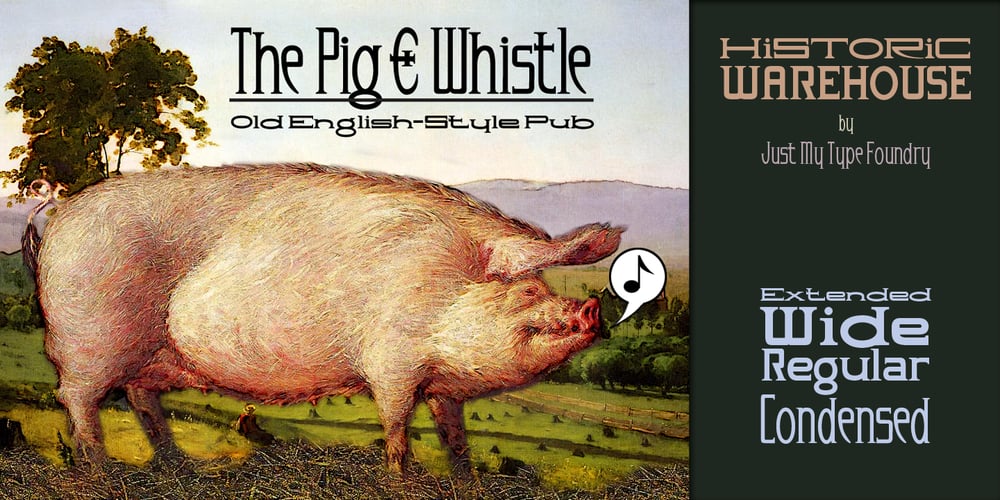
Historic Warehouse Font Family was designed by Randy Harris and published by Just My Type. Historic Warehouse contains 4 styles and family package options. Gotta tell ya: think out of the box and this font is addictingly fun to use! Introducing Historic Warehouse, a substantial, yet elegant family, invoking advertising fonts of the early 20th century. Why the name? When asked to design a banner for Tucson’s Historic Warehouse District, I couldn’t find the look I wanted from any known fonts. After drawing what I wanted in Illustrator, there were three (and in the process, four) fonts just waiting to be realized. Happy to oblige. Here’s Historic Warehouse Regular, setting the stage. It’s sturdy, bold, and plays curves against rounded angular shapes. To its left is Historic Warehouse Condensed, trim, elegant and at its best at very large sizes; to the right is Historic Warehouse Wide, with charming style and presence. Finally, there’s Historic Warehouse Extended, extravagant in its proportions, with a beautifully-crafted form like a fine carriage. As the song says, “Everything Old Is New Again,” and this family looks as fresh and clean at the beginning of this century as it might have at the beginning of the last.